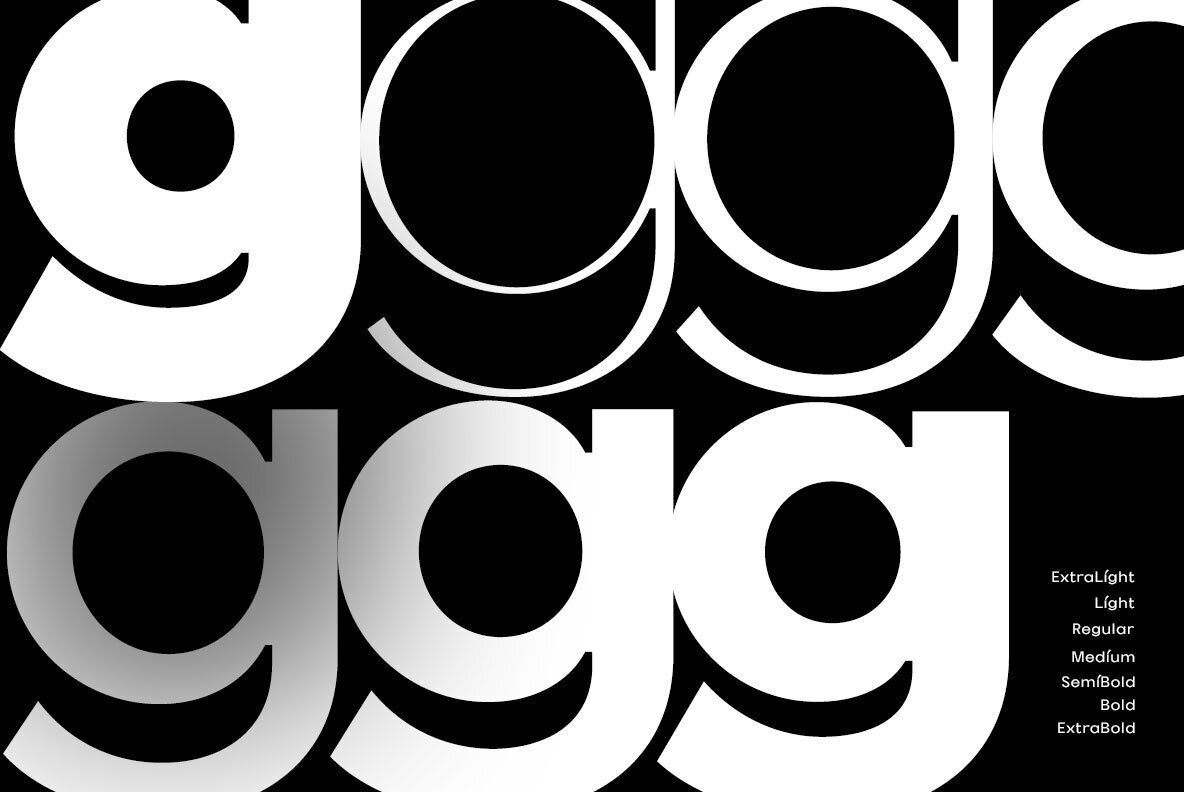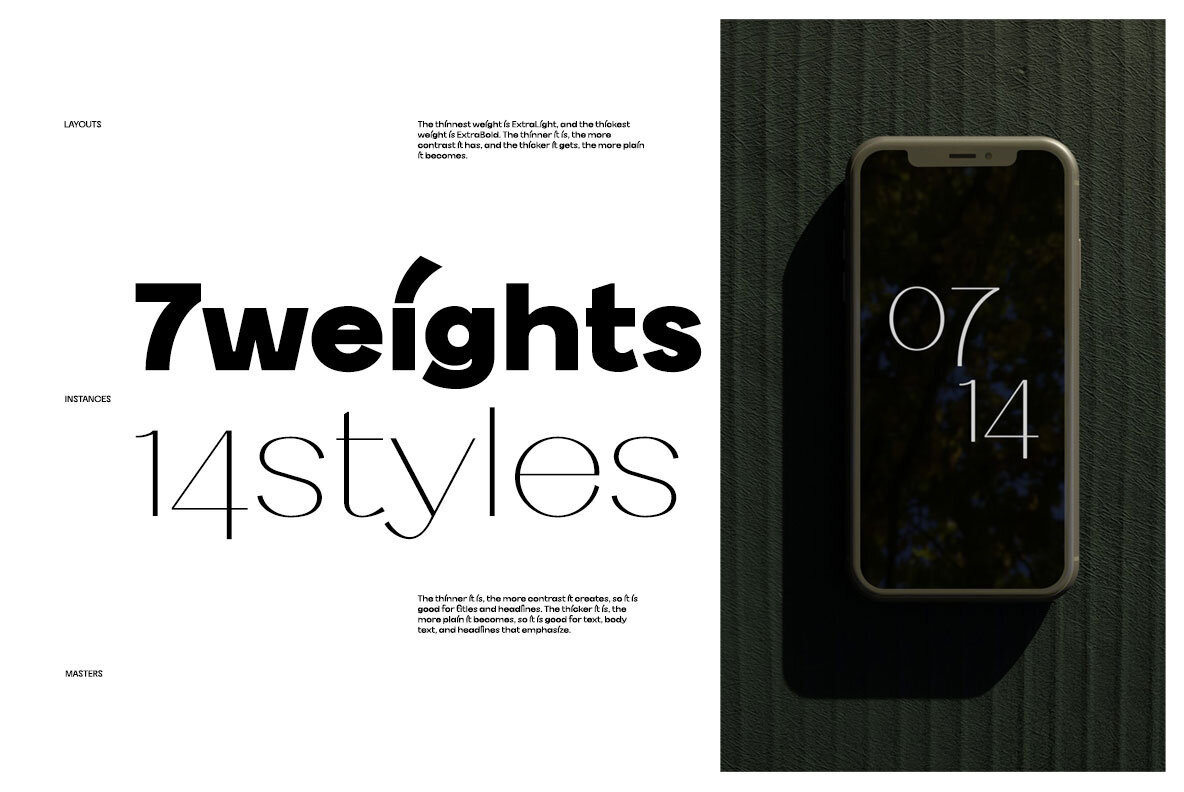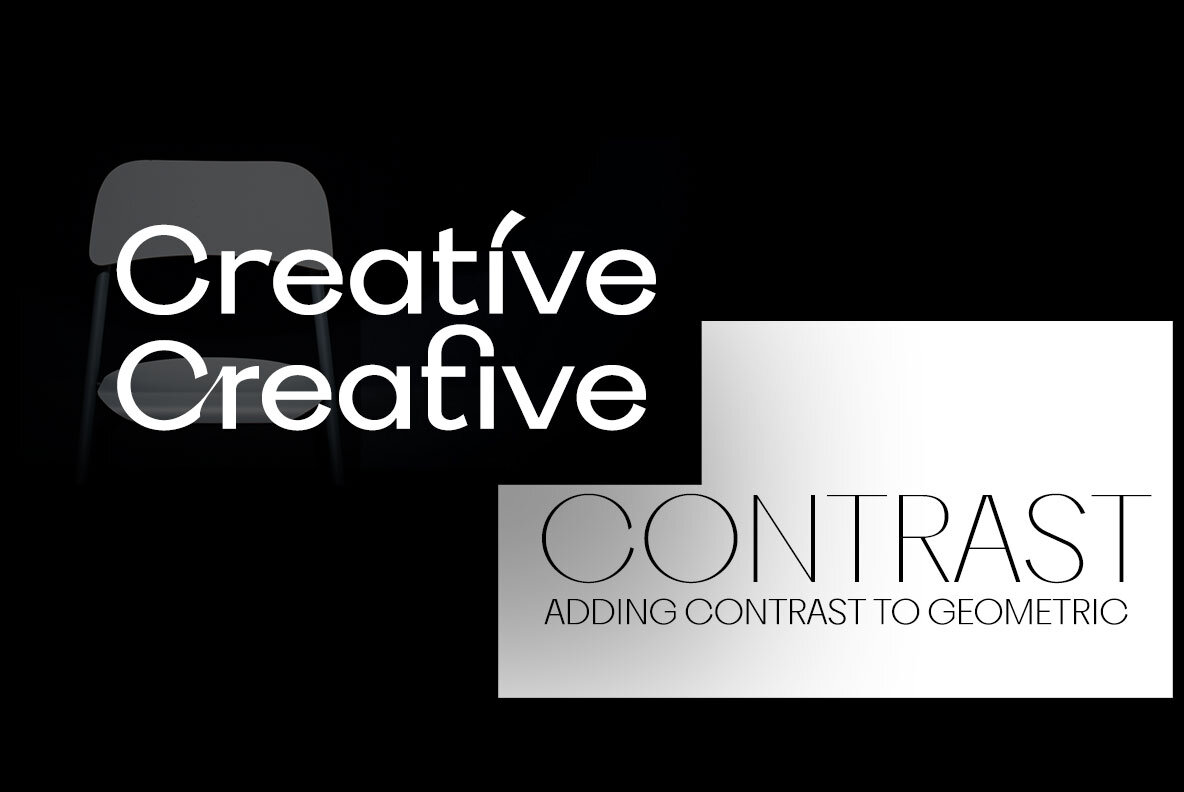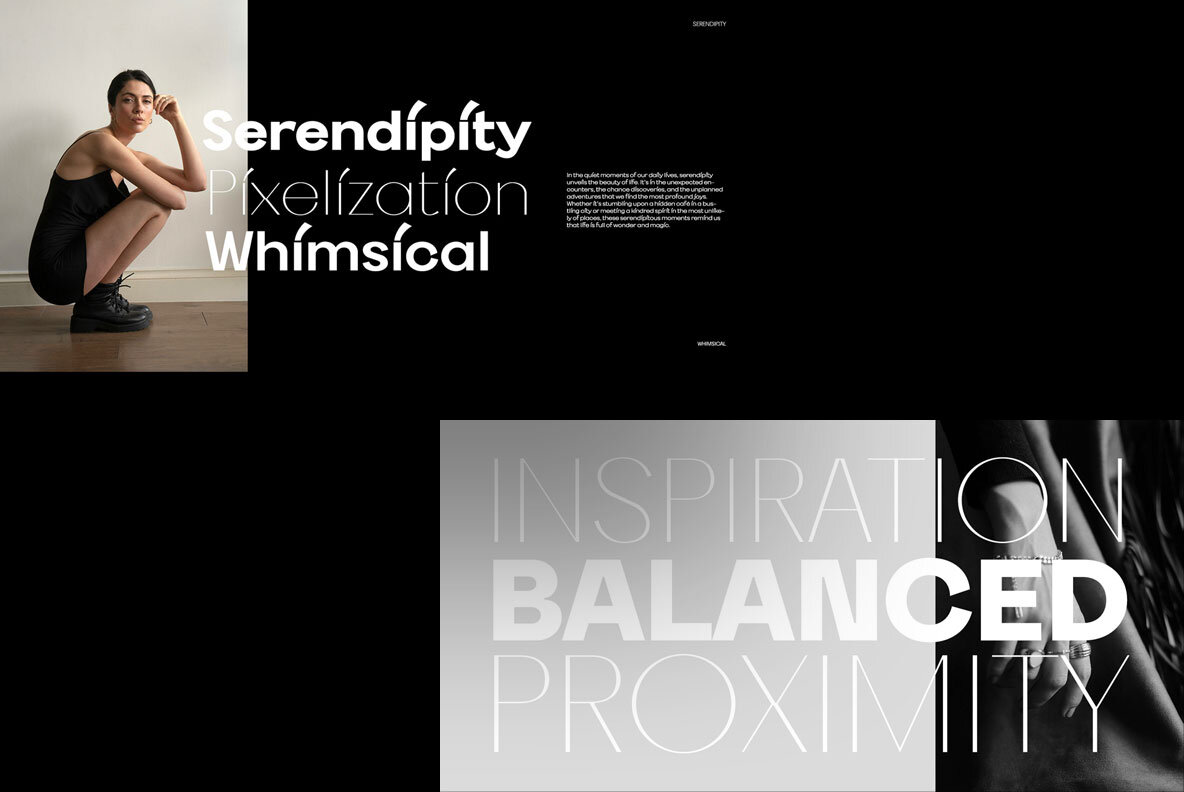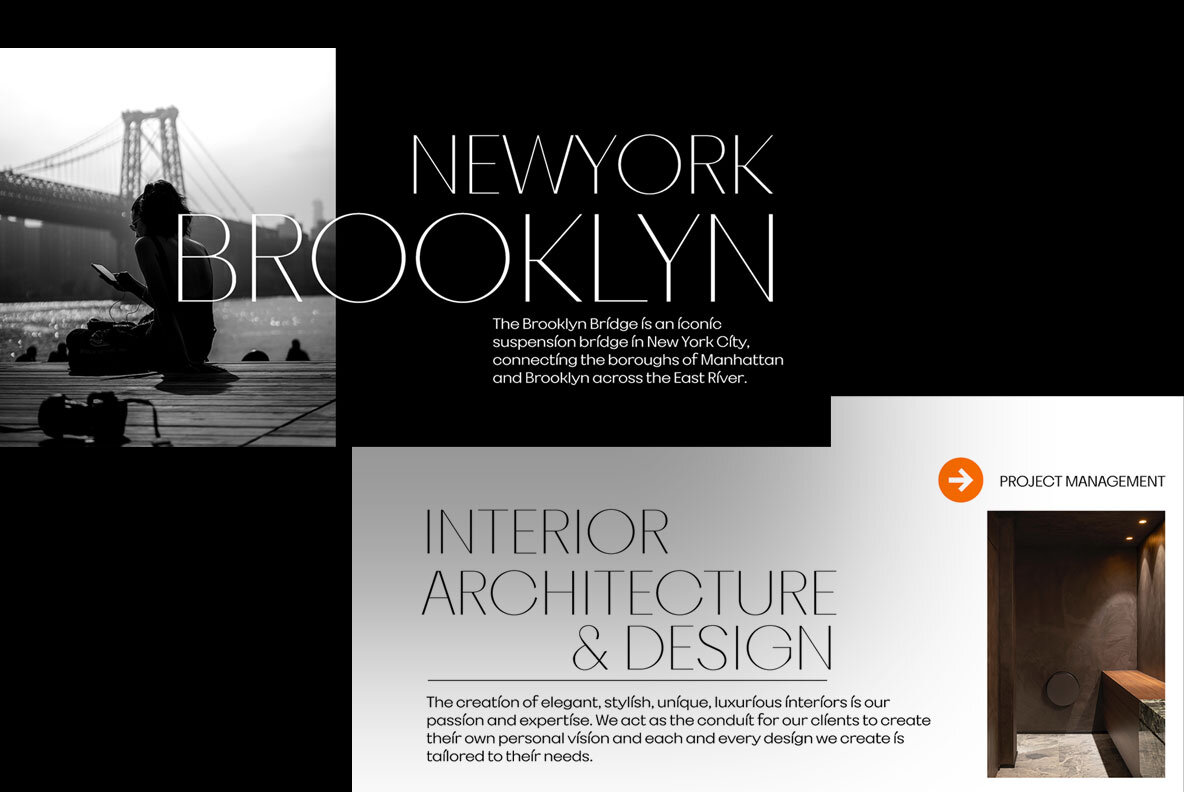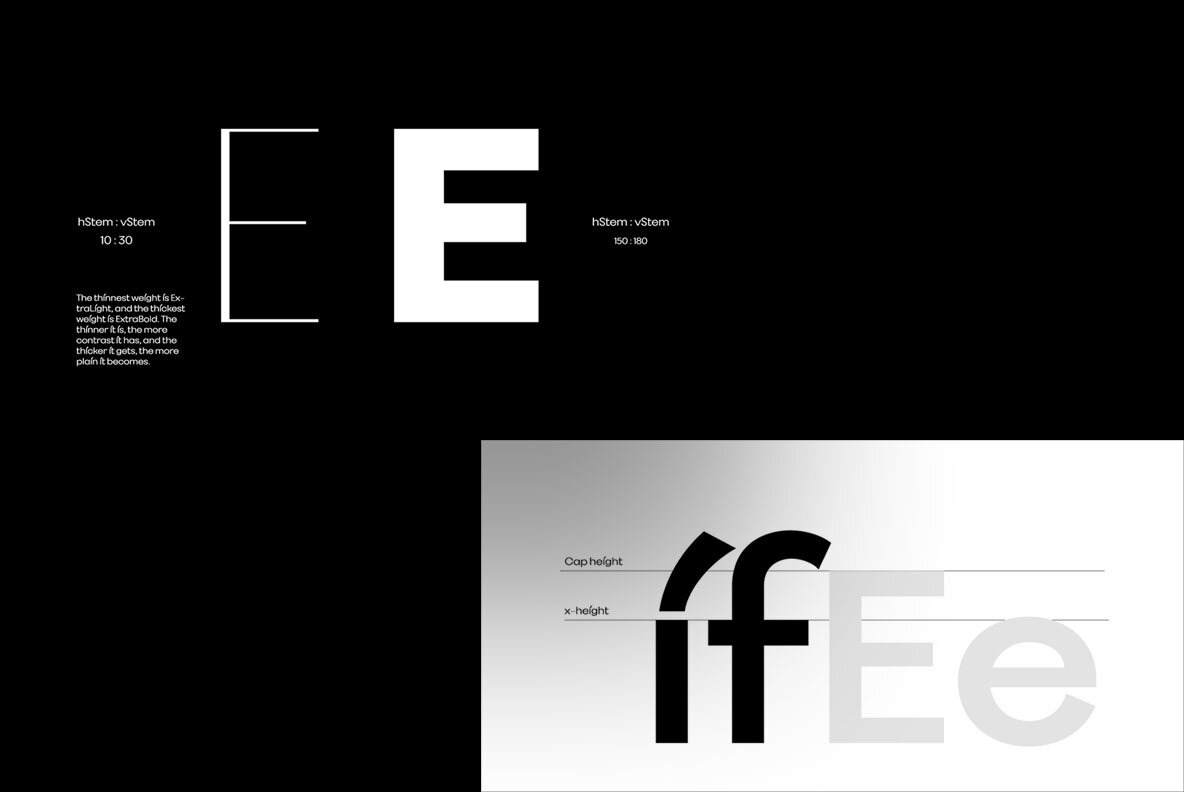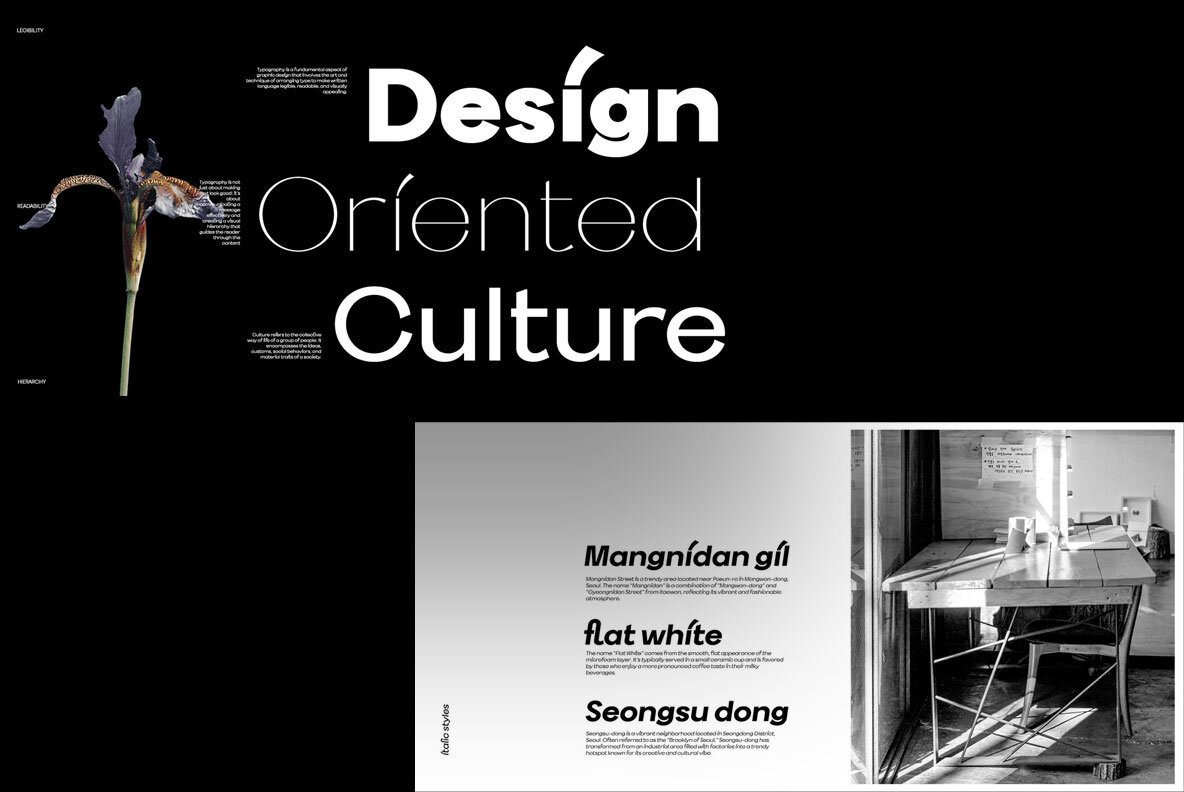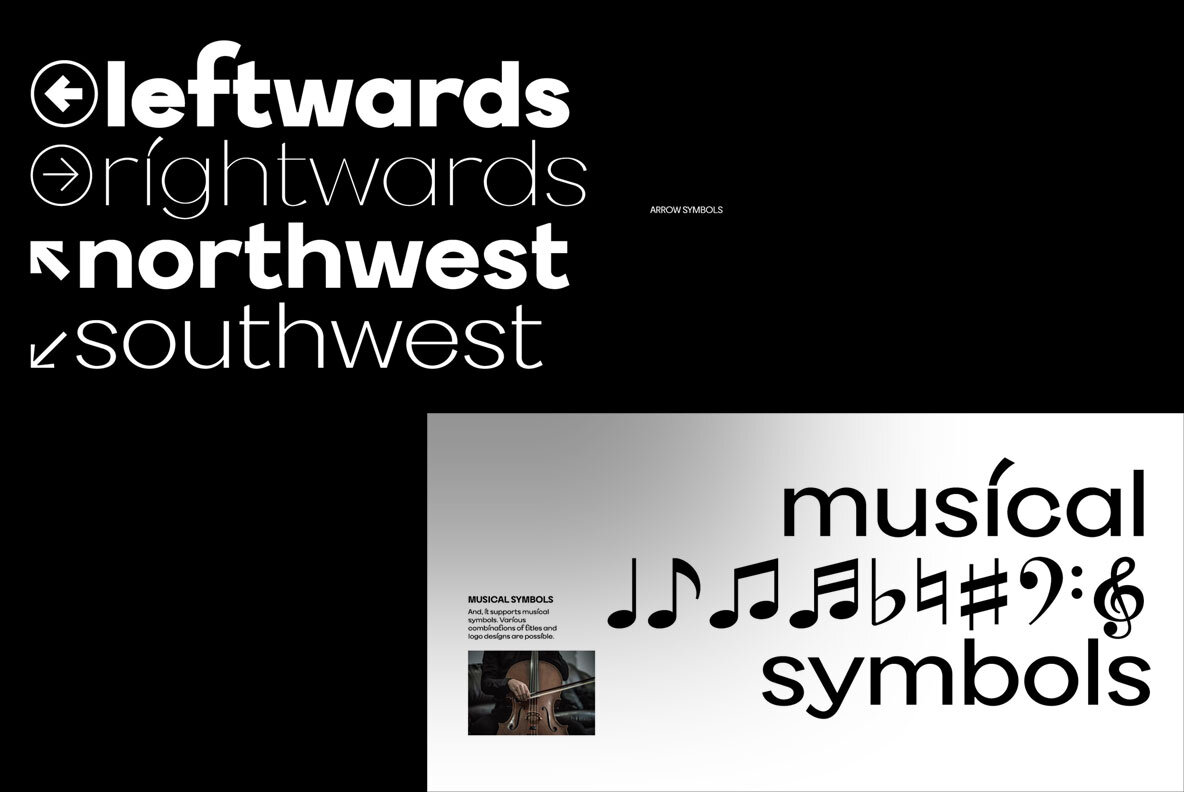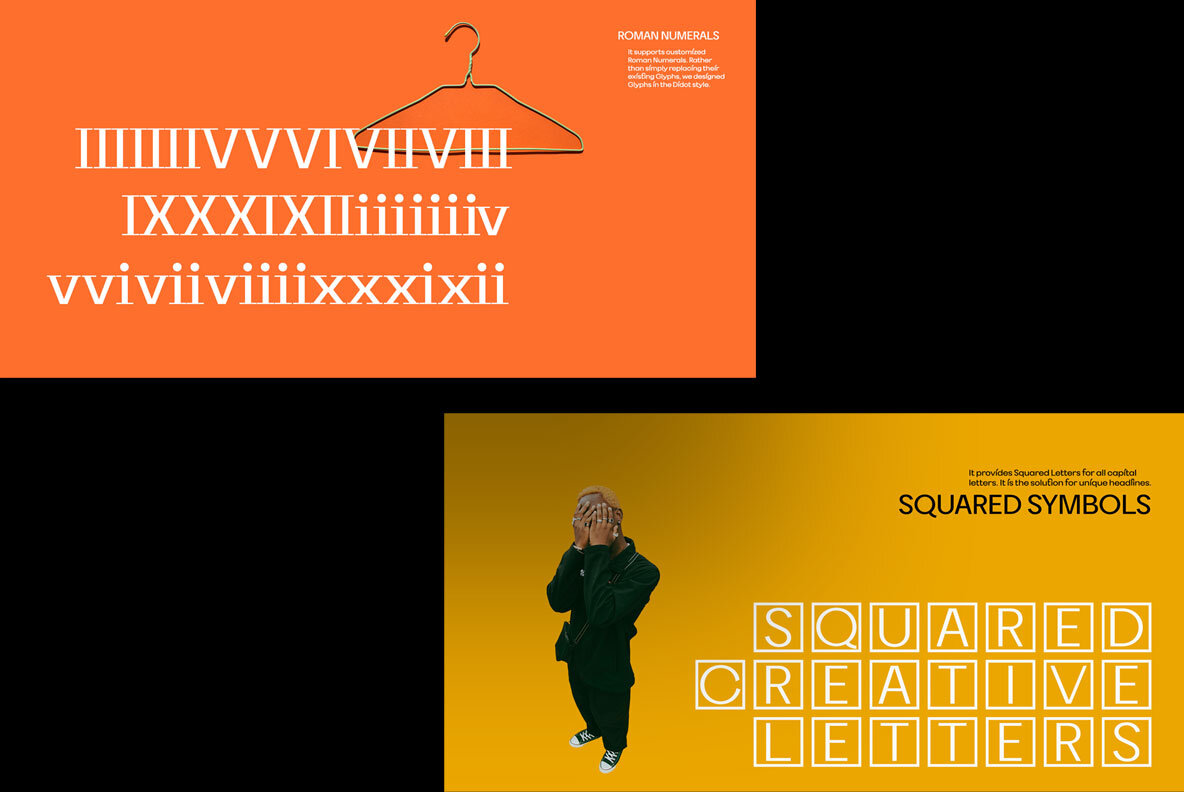
Cinedics Font
It is an elegant display font family based on Geometric Sans with added mathematical contrast. In lighter styles, the contrast is increased, and as it gets heavier, it is designed to become more plain. We've sensually improved on the plain and boring experiences found in traditional Geometric Sans fonts. And, various glyphs have been added, including musical symbols, square capital letters, and Cyrillic language support, and ligatures have been added to improve completeness. It features a unique look and feel, with the diacritic dot of the lowercase [i] and the hook of the lowercase [f] also designed with tall, long terminal strokes. Features
It will be the best solution for elegant and rhythmic headlines and strong and impactful logo designs.